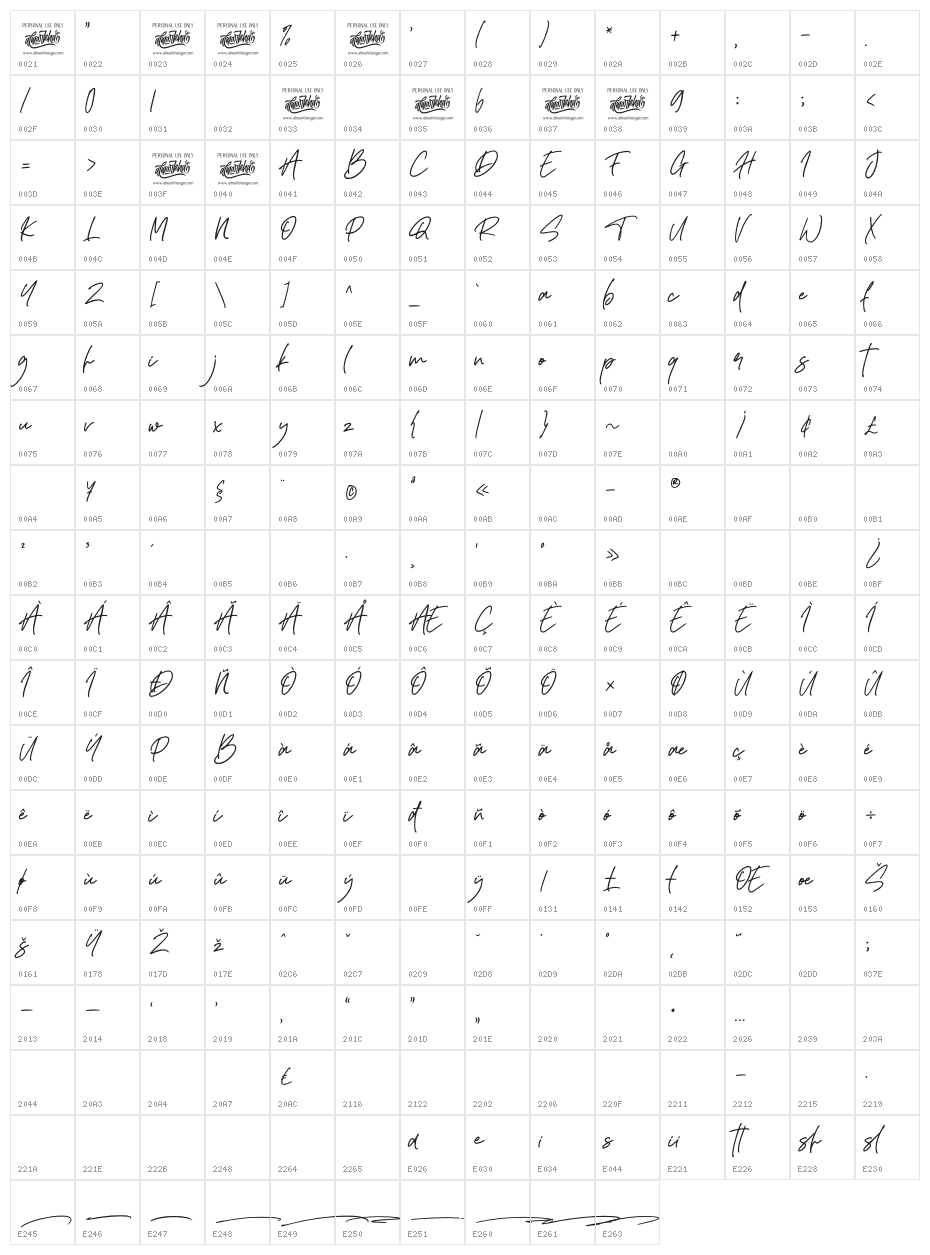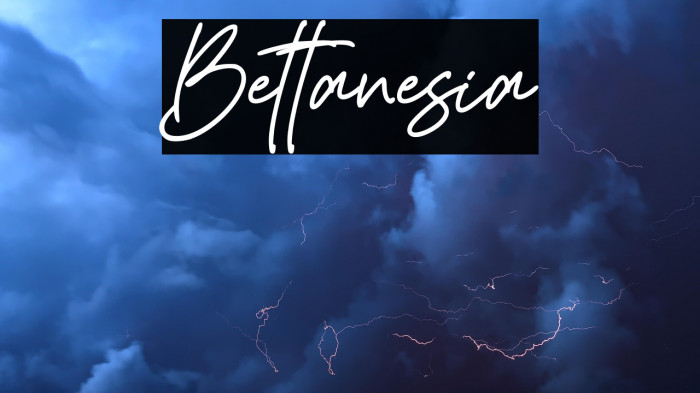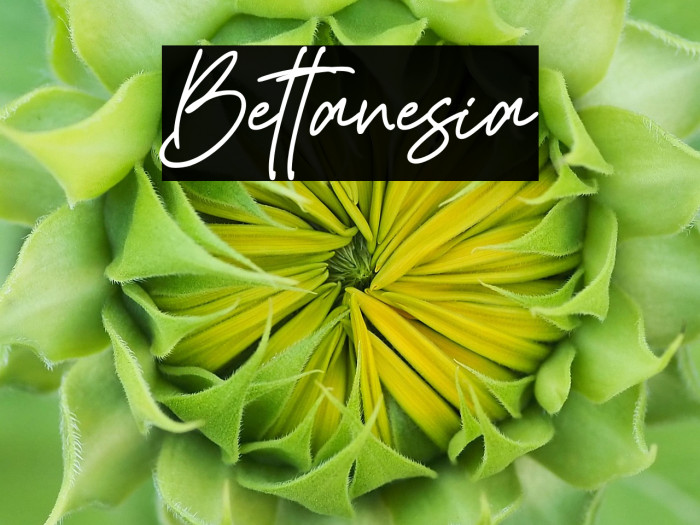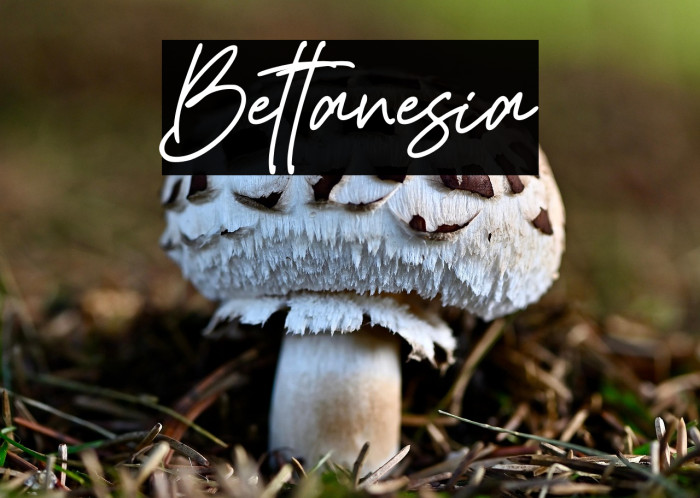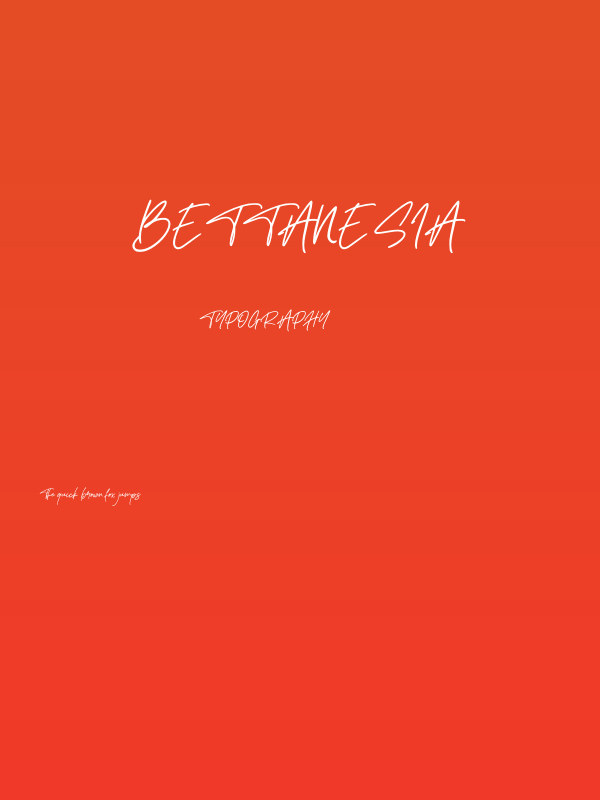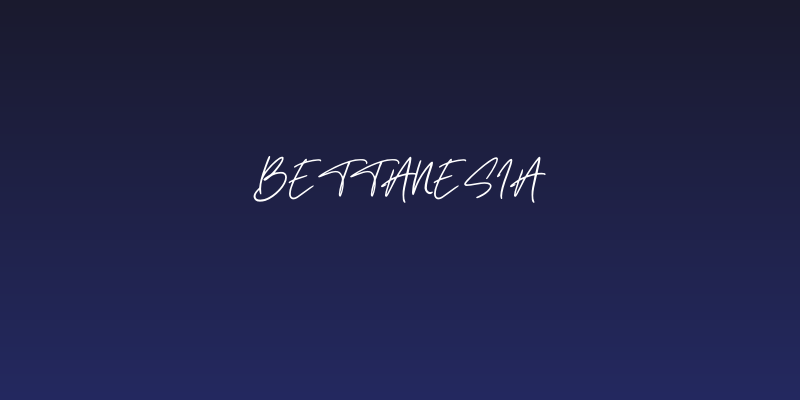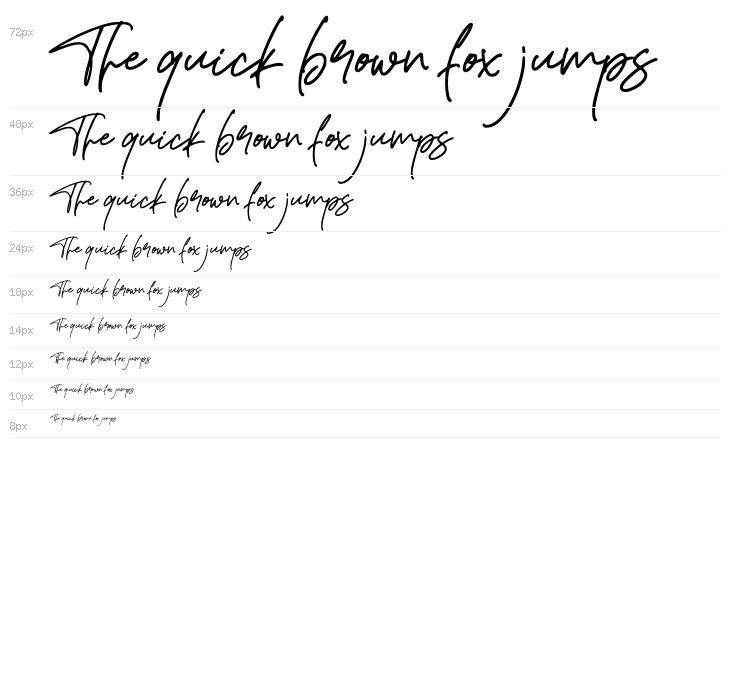
Bettanesia Font
Bettanesia Description
This font features a dynamic and fluid handwritten style, characterized by its elegant and flowing script. The letters are connected in a natural and seamless manner, giving it a personal and artistic touch. The uppercase letters are bold and slightly slanted, while the lowercase letters maintain a consistent flow with varying stroke widths. The numerals and special characters complement the overall style, adding to its versatility. This font is perfect for projects that require a personal, creative, and expressive feel, such as invitations, greeting cards, and artistic branding.
| Proposed Projects | Ideal for invitations, greeting cards, artistic branding, and personal projects. |